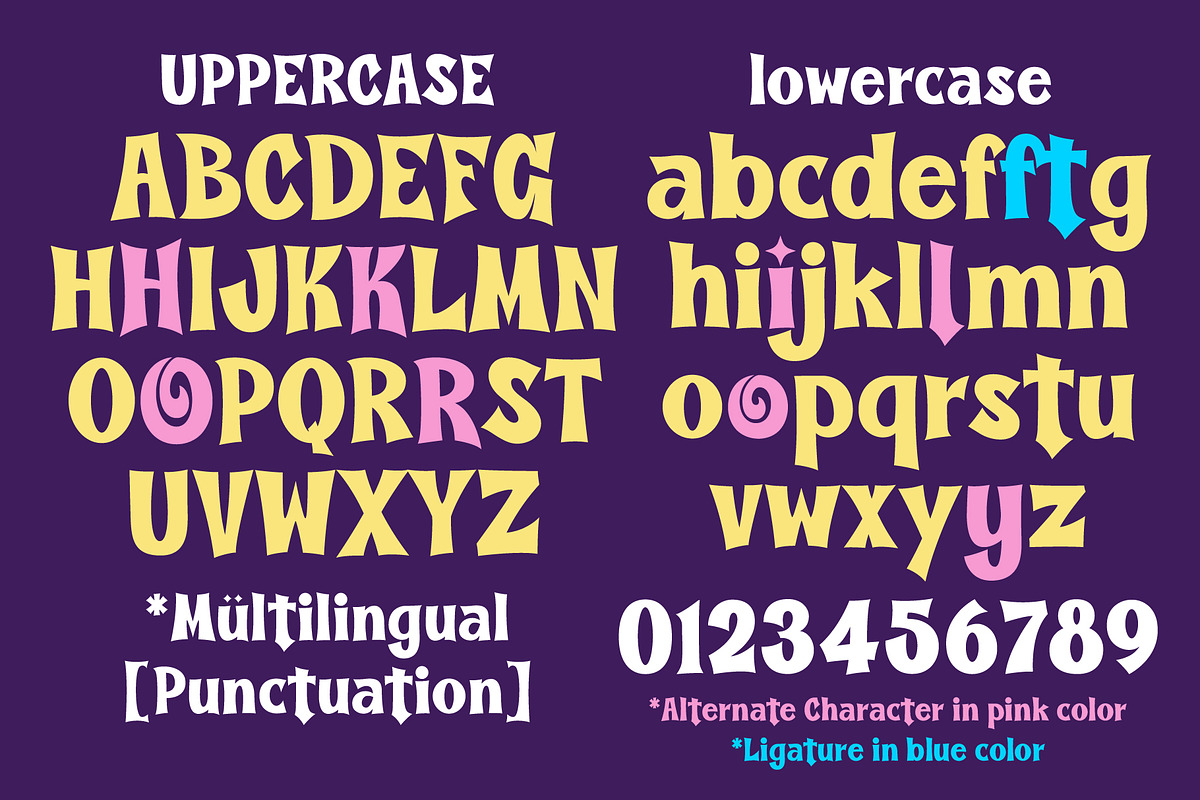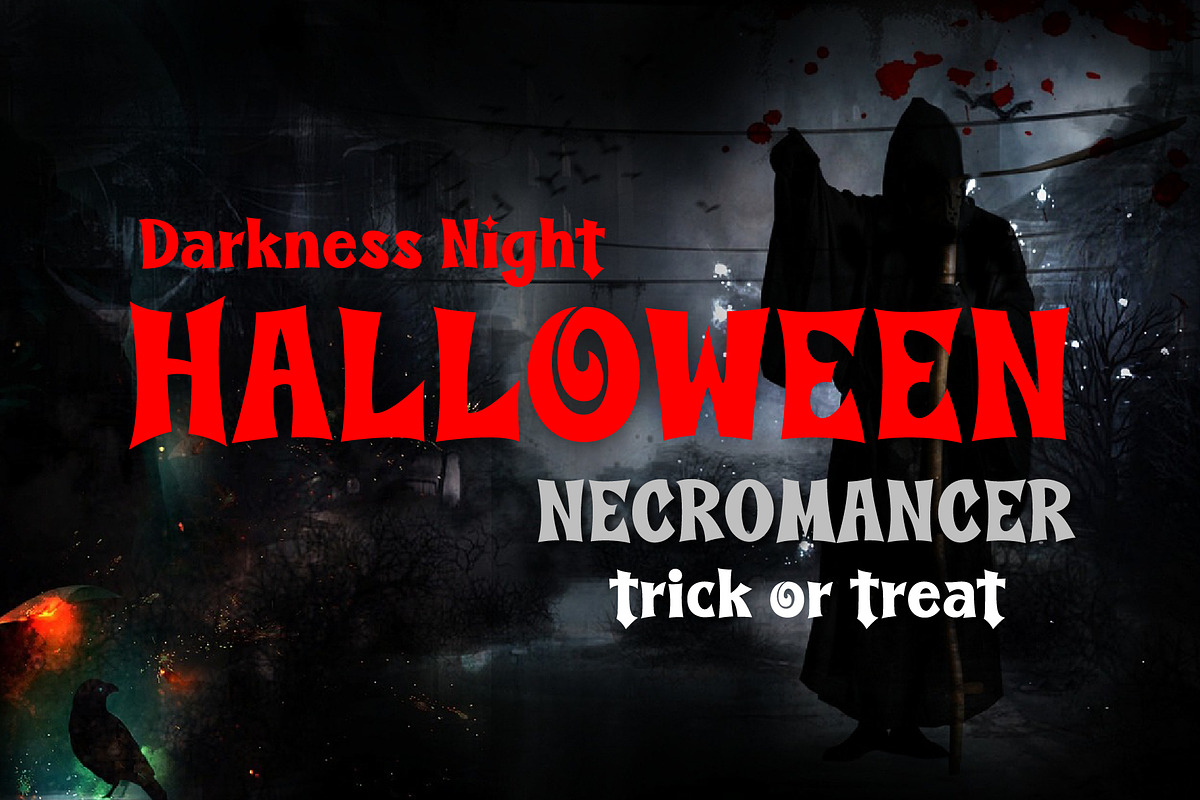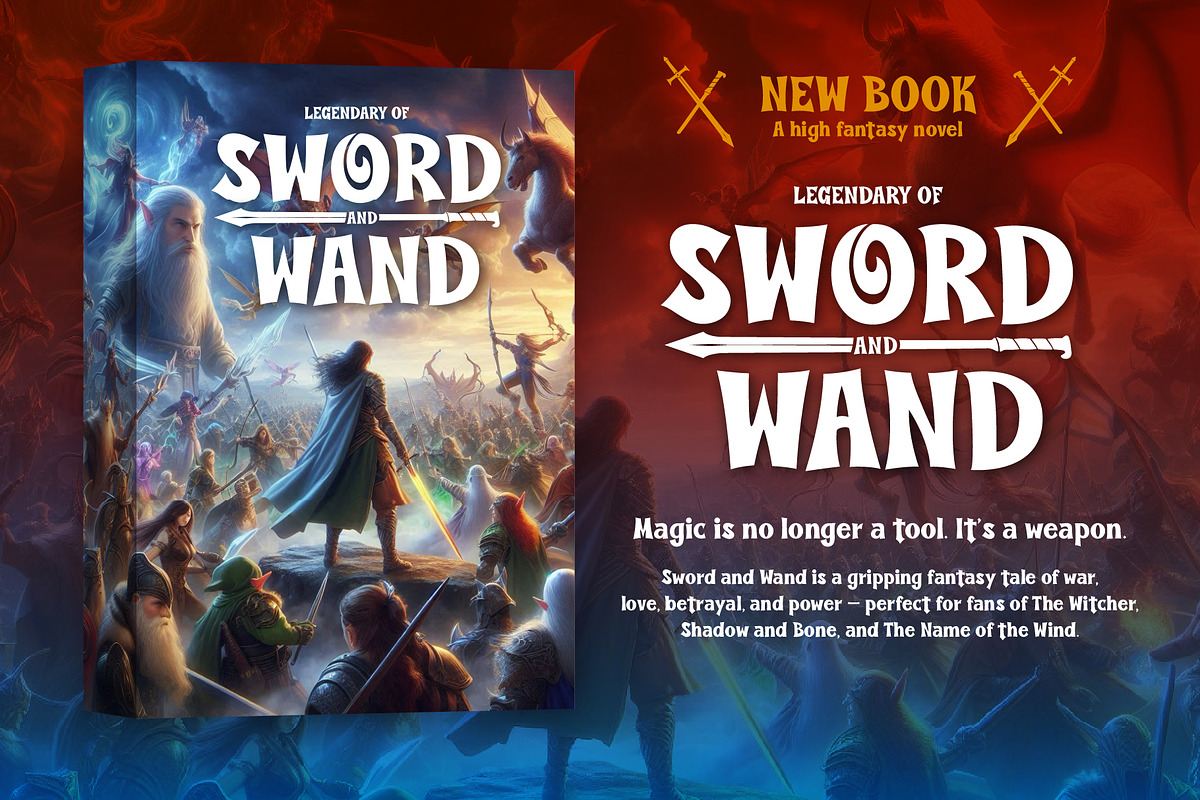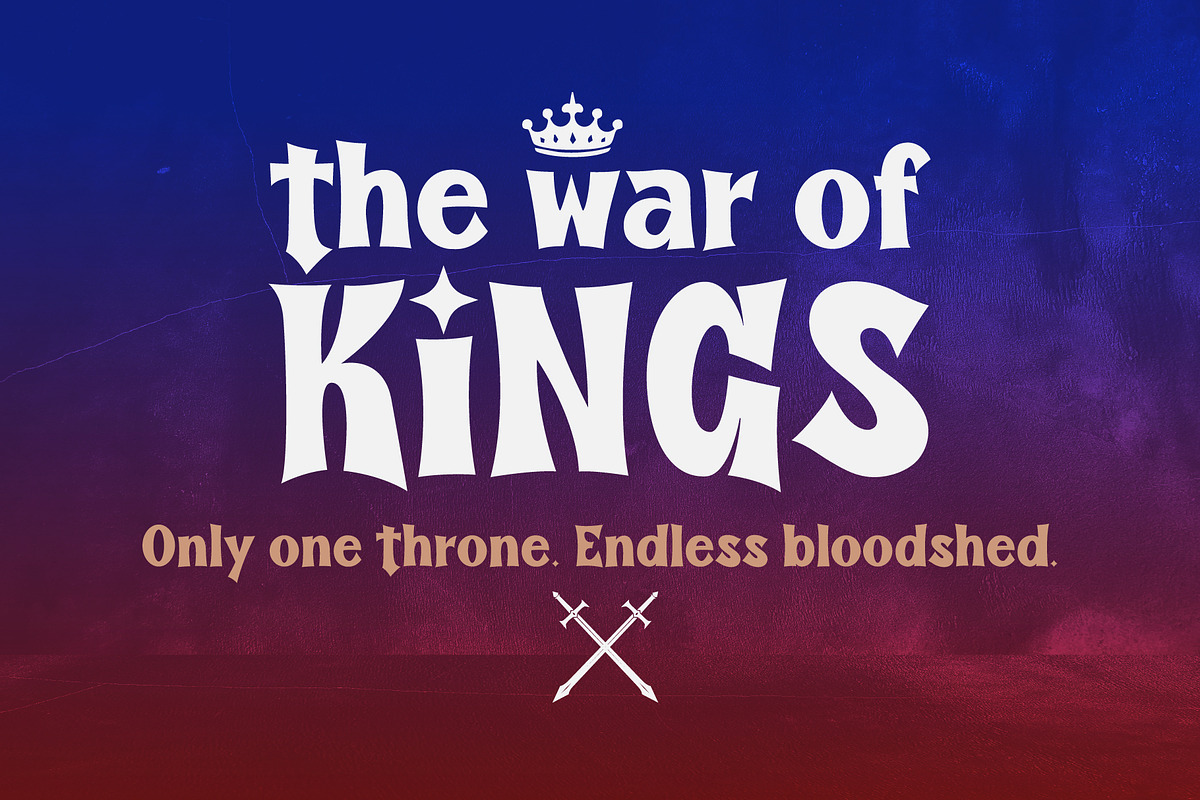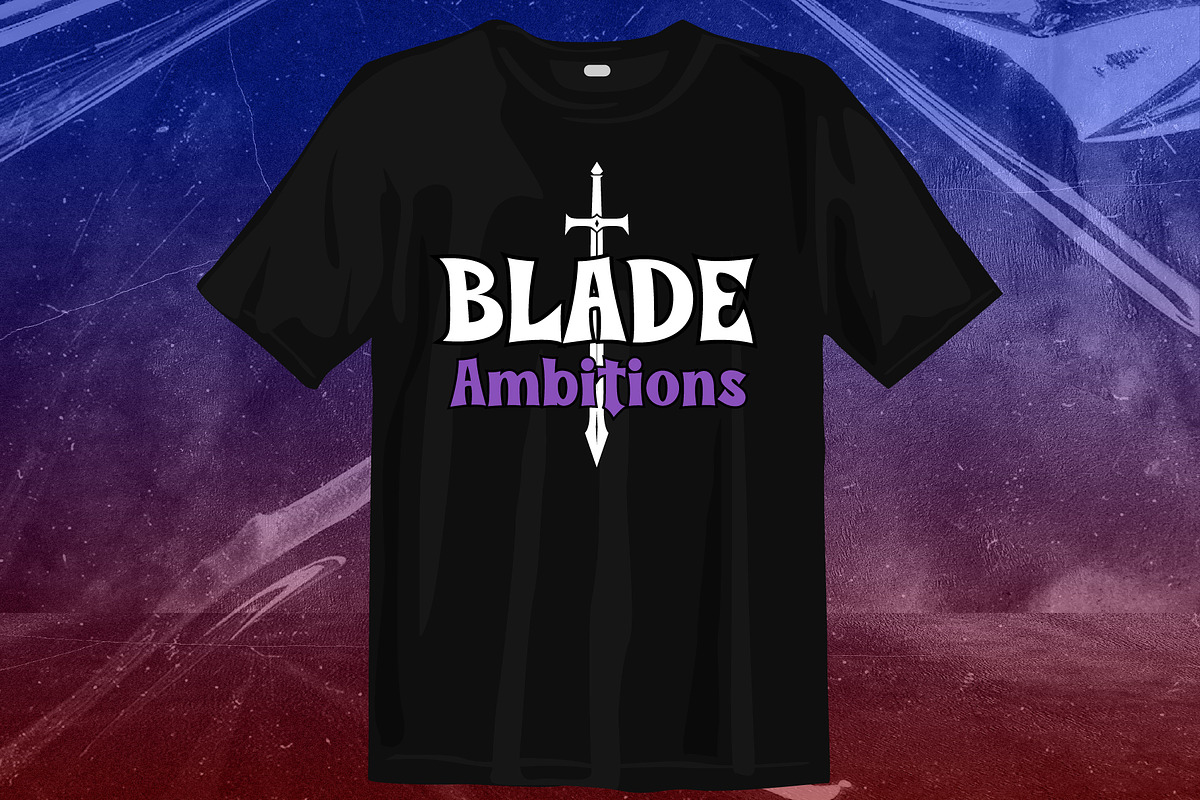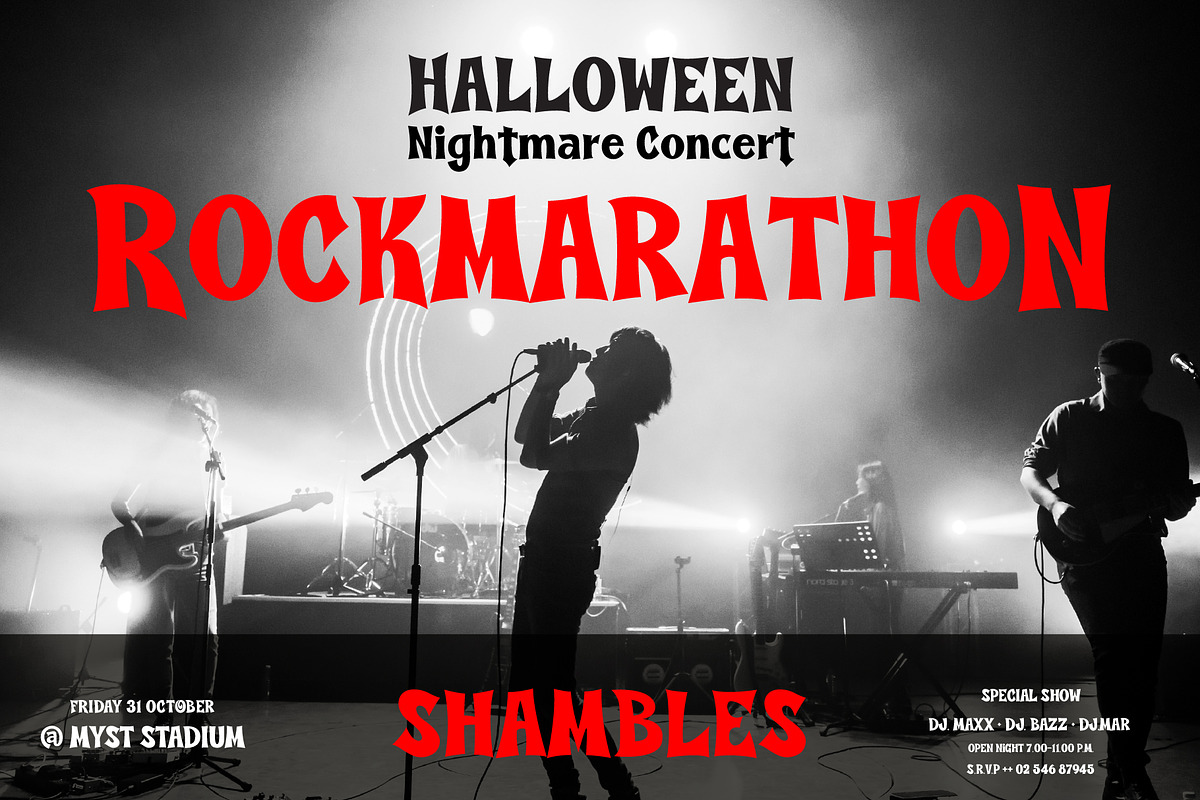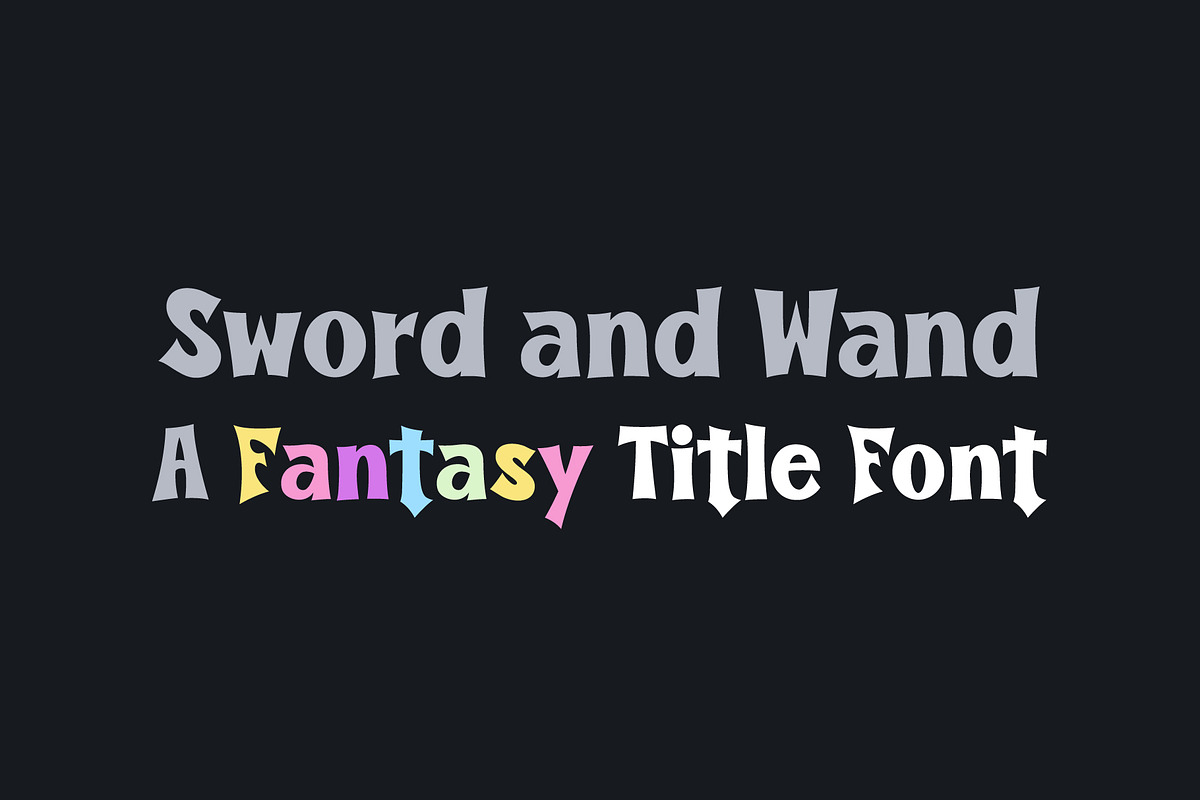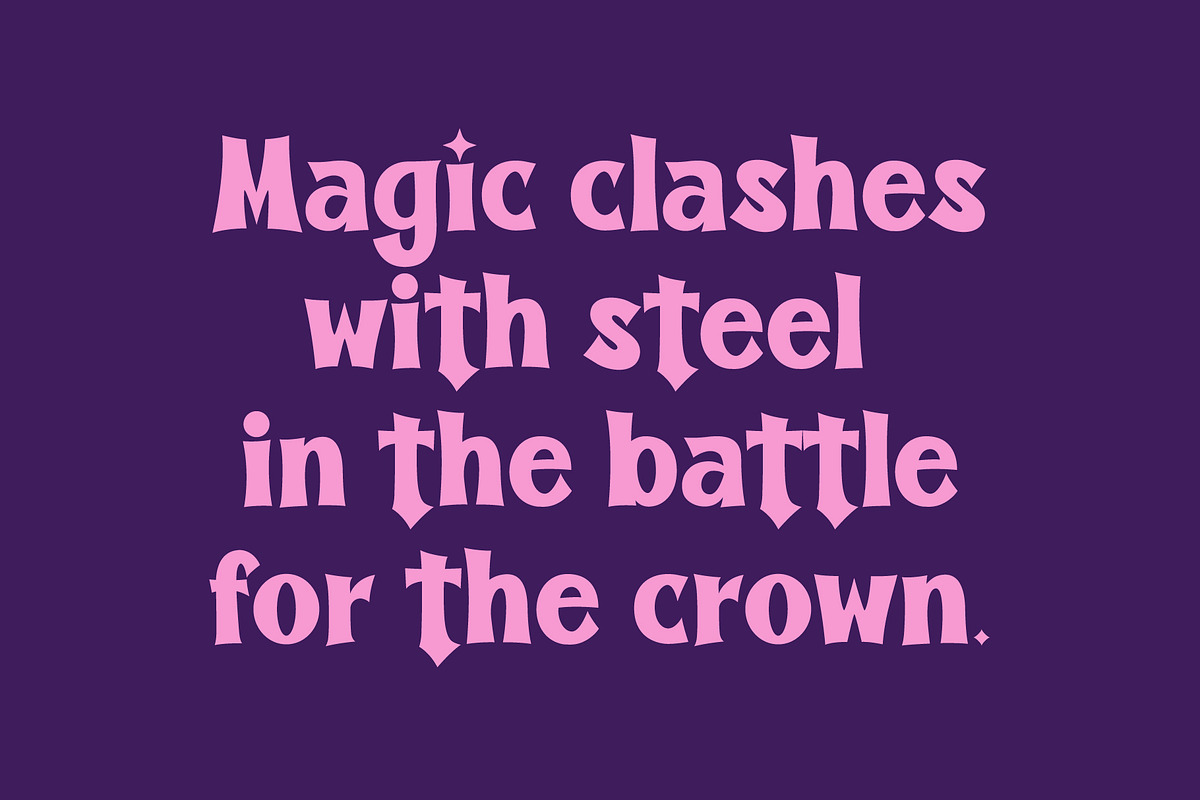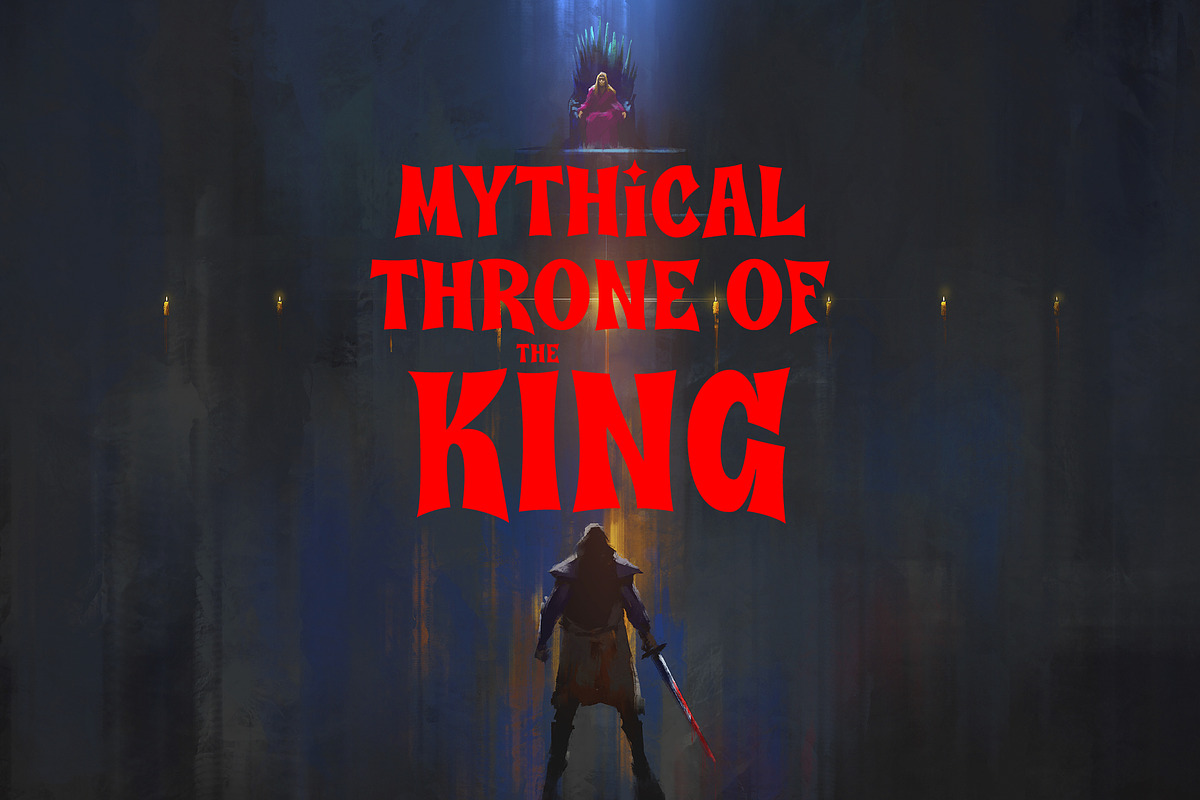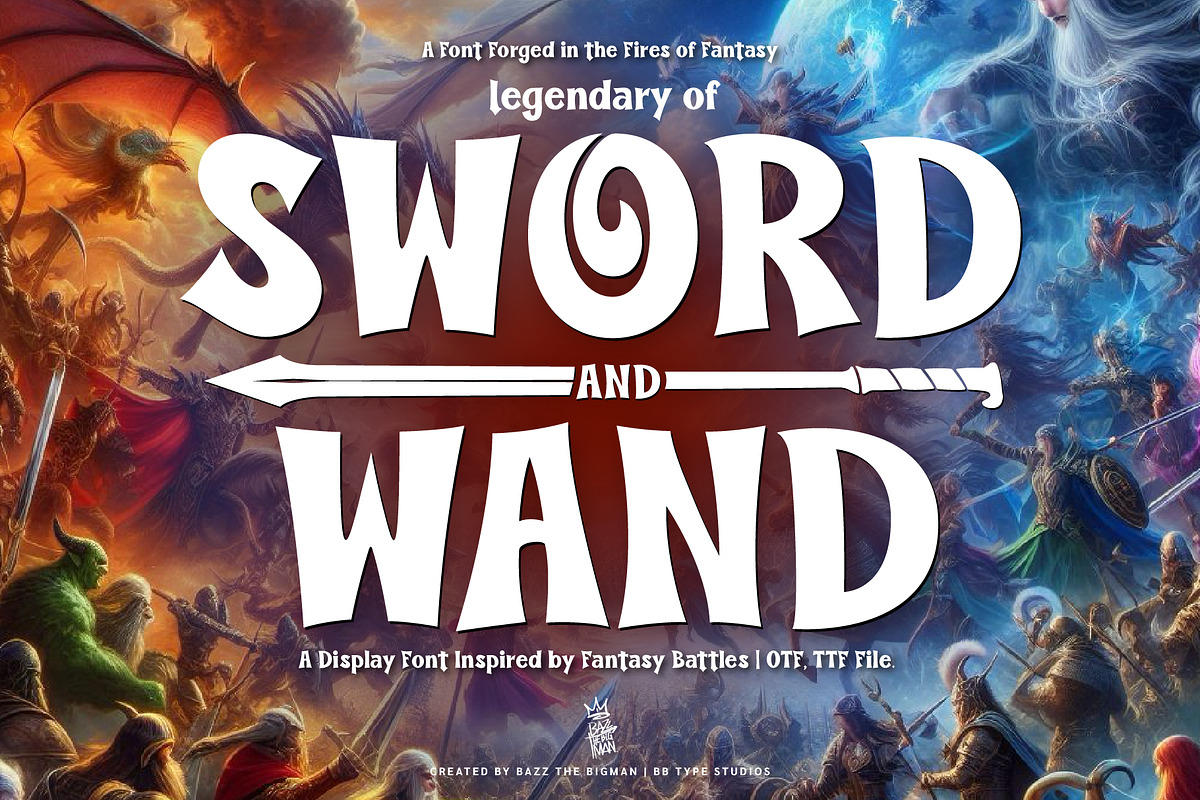
Sword and Wand
Step into a world where steel clashes with sorcery.
Sword and Wand is a bold fantasy display font inspired by epic battles, dark magic, and legendary quests. With sharp strokes and whimsical curves, this typeface is perfect for book covers, game titles, Halloween posters, metal band logos, and anything that needs a magical touch.
Whether you’re crafting a mythical novel, designing a heroic T-shirt, or branding your next dark fantasy game — Sword and Wand brings your imagination to life.
✨ Features: – Uppercase & lowercase – Alternate letters with fantasy flair – Multilingual support – Numbers & punctuation
Ideal for: Fantasy-themed projects, RPG titles, Halloween branding, heavy metal aesthetics, and more.